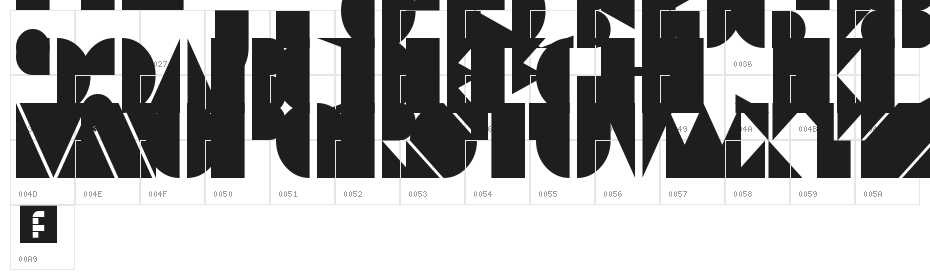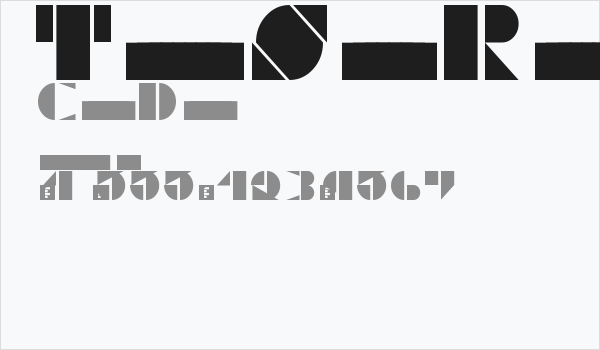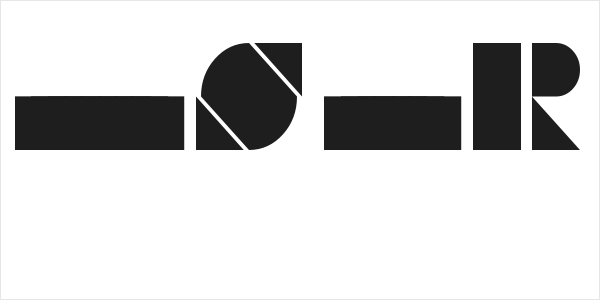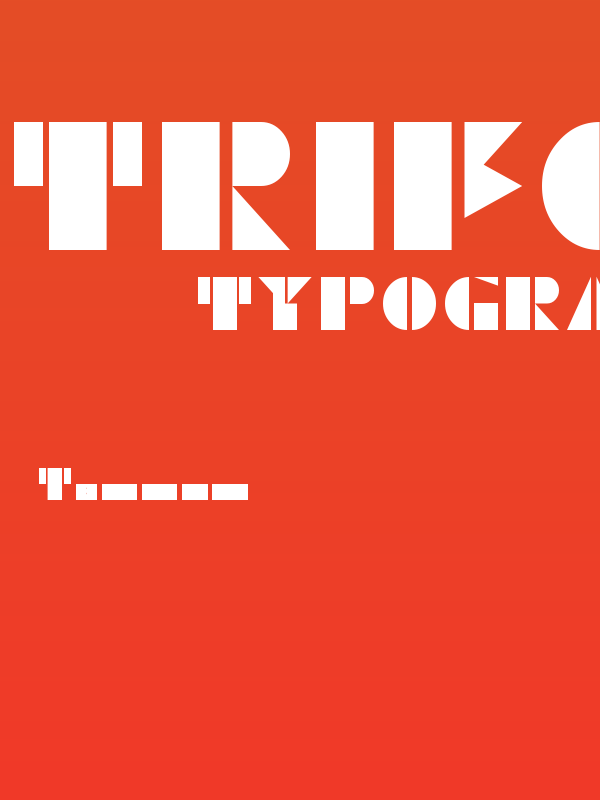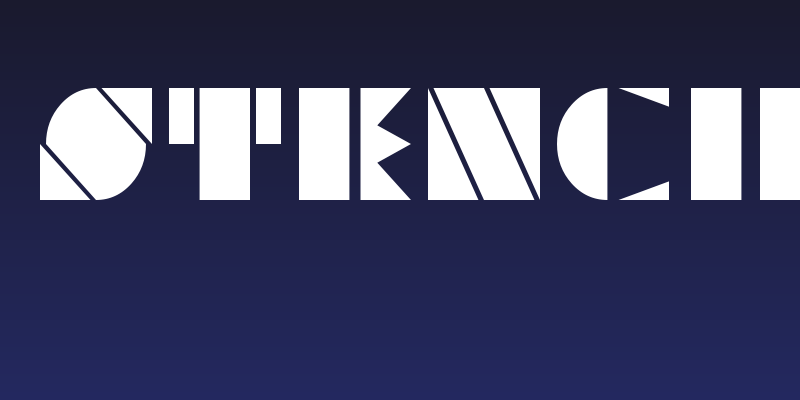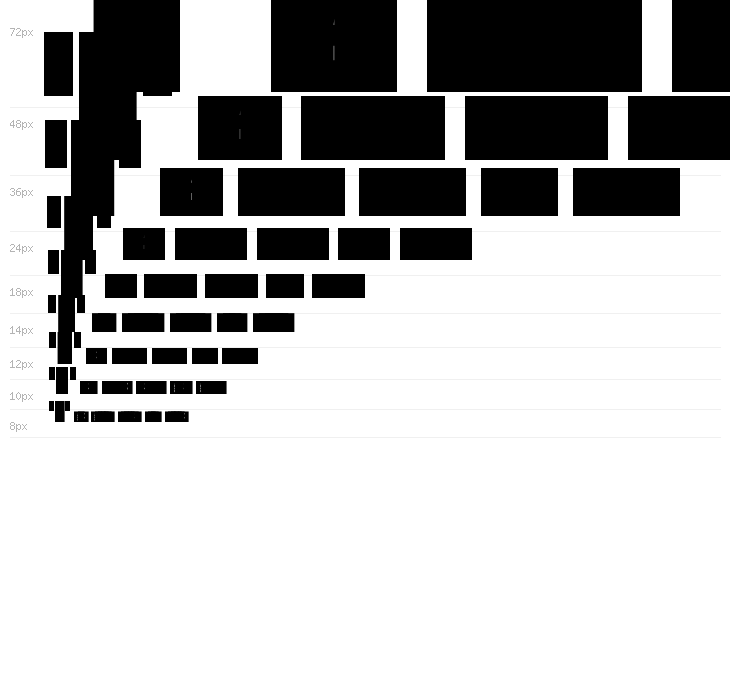
Trifolium Stencil Regular Font
Trifolium Stencil Regular Description
This font features a bold, geometric stencil design with sharp angles and distinct cutouts, creating a striking visual impact. The uppercase letters are characterized by their solid, block-like appearance, while the lowercase letters maintain a similar geometric style with consistent cutouts. The numerals and special characters follow the same design principles, ensuring uniformity across all glyphs. The font's unique style makes it ideal for projects that require a modern, industrial feel. Its boldness and distinct shapes make it stand out, while the stencil design adds an element of intrigue and creativity.
| Proposed Projects | Ideal for branding, posters, signage, and any project needing a modern, industrial aesthetic. |